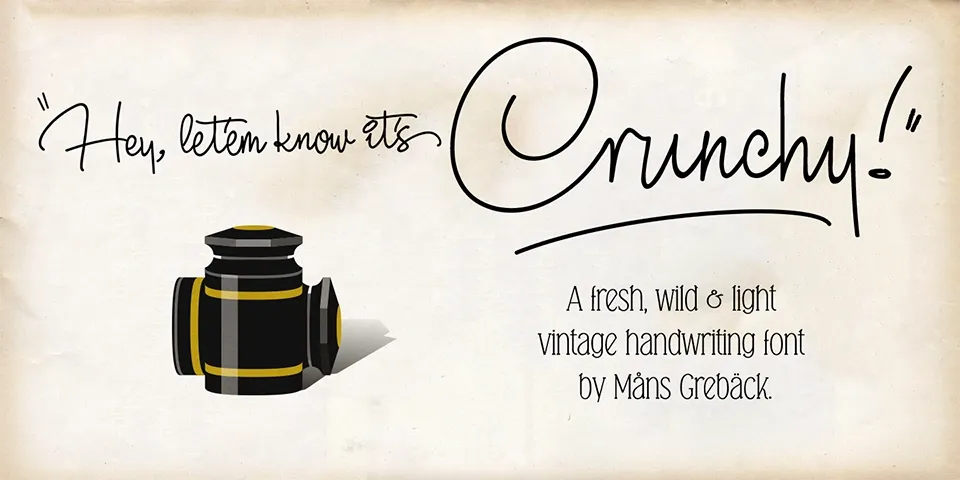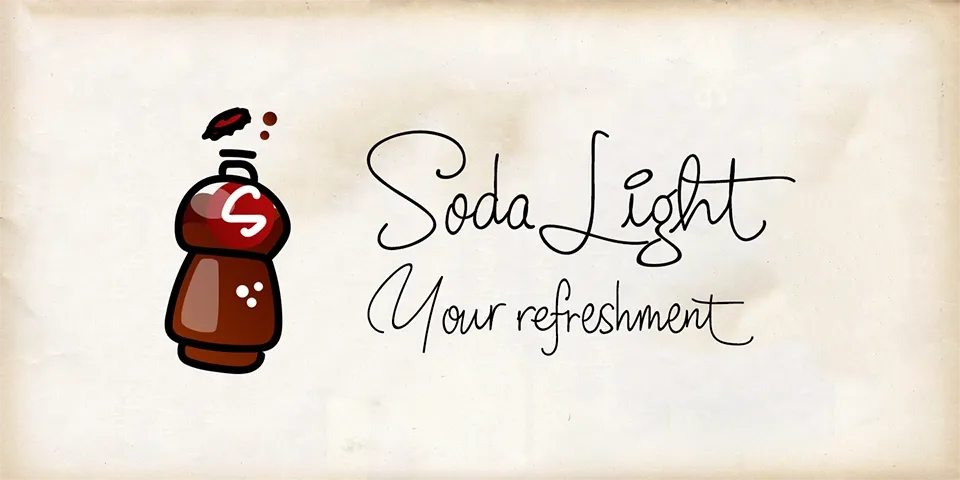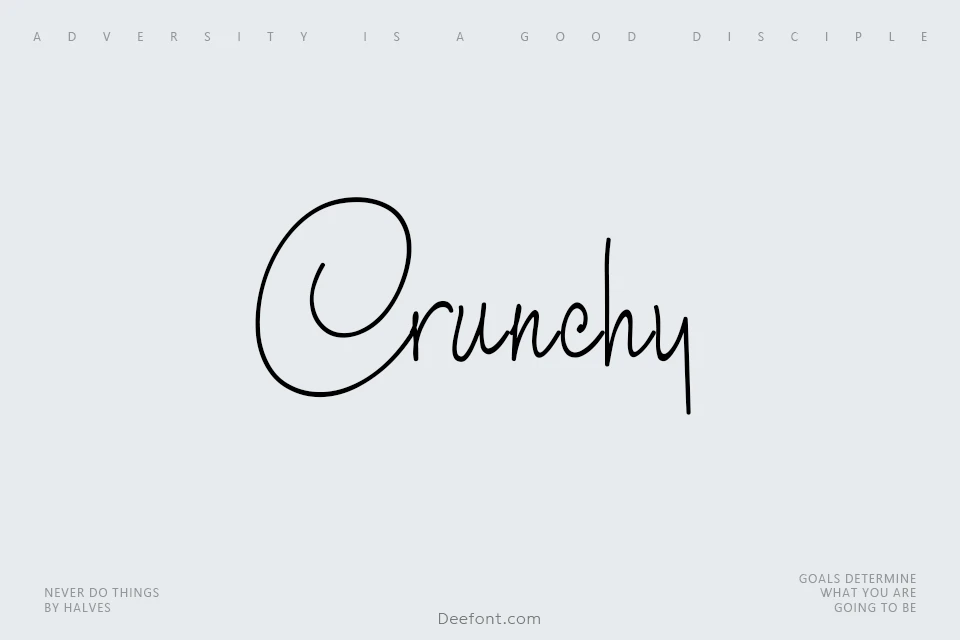
Crunchy Font
Crunchy Font is a fresh, wild, and light vintage handwriting font that brings a natural brush aesthetic to your designs. This charming script typeface was created with the concept of a simple natural brush, making it friendly and suitable for application in any project. The name of this font is connected to its rough and crisp style in lines, just like crunchy food, giving it a distinctive character that stands out. Crunchy Font features 565 glyphs and supports 42 languages, making it versatile for international projects. The font includes bonus swashes and alternative characters for letters f, g, j, y and numerals 0-9, which can be accessed through Font Book on Mac or Character Map on Windows. Perfect for logos, shirts, fashion, blogs, websites, product branding, posters, flyers, and text overlay on background images, Crunchy Font delivers a casual modern appearance that enhances any creative project with its handwritten charm.